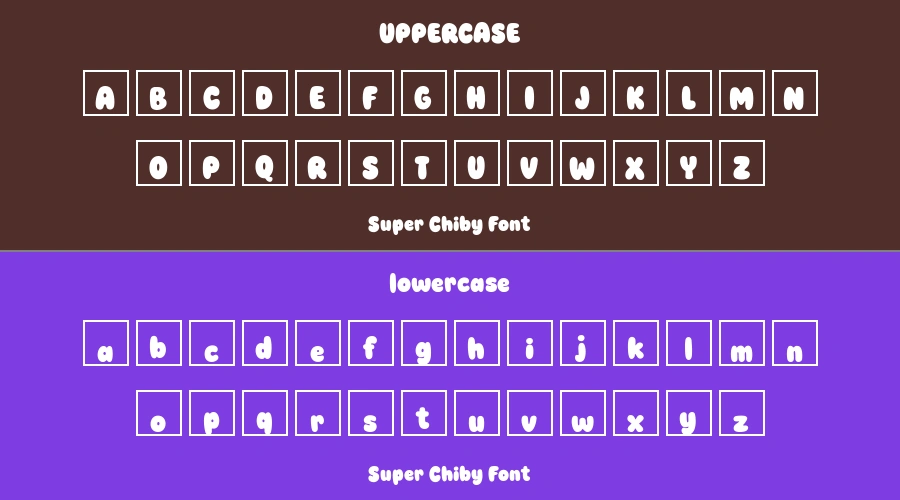
About Super Chiby Font
When typographic excellence matters most, Super Chiby Font delivers through its thoughtful blend of dynamic forms and refinement. Specially crafted for poster titles, it offers the functionality and creative potential required for sophisticated design work. Every detail serves a purpose.
The character set showcases thoughtful details like decorative alternates alongside functional period ligatures. This proves especially valuable in social media assets, where consistency directly influences results. Particular attention was paid to proportion and research value during development.